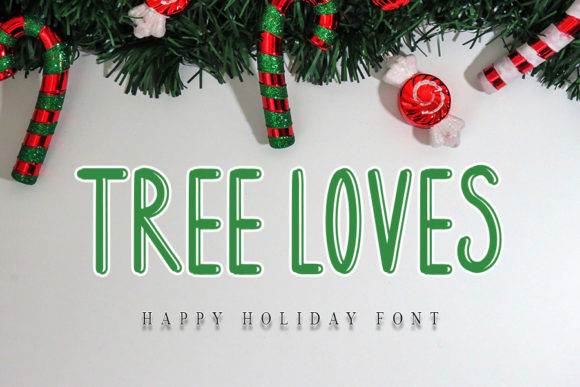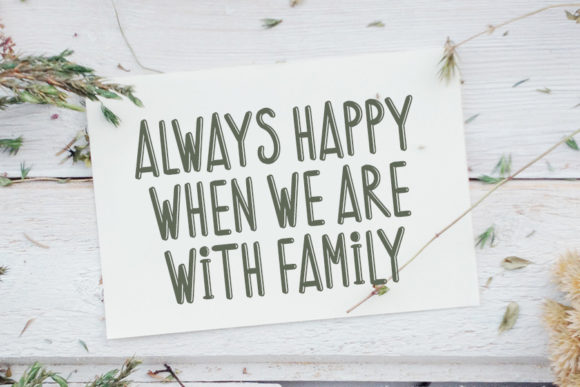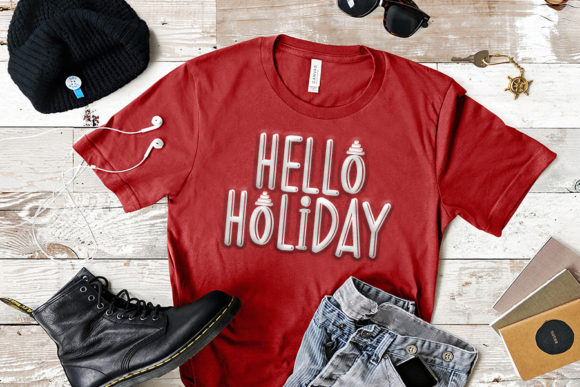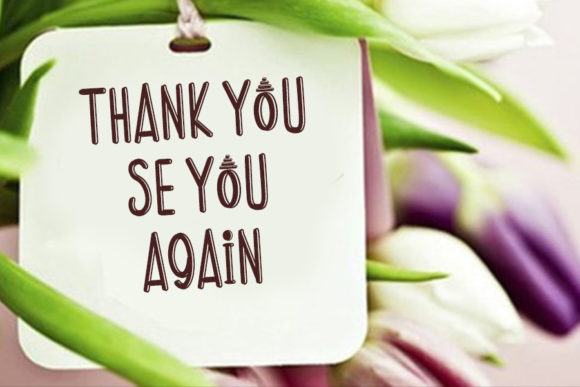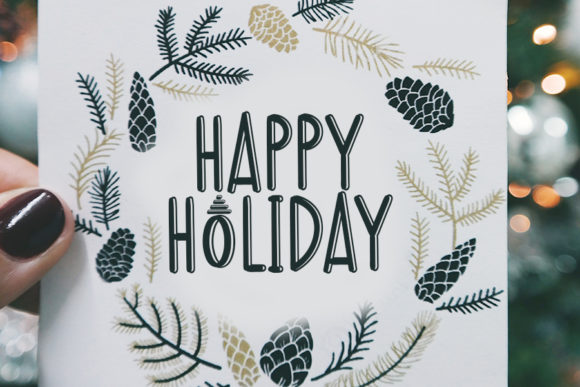
Tree Loves Font
About Tree Loves Font
Tree Loves is a handwritten font with a modern style. Clean and a little bit quirky, this font is the perfect fit for all of your logos, branding, social media, and crafty DIY projects.